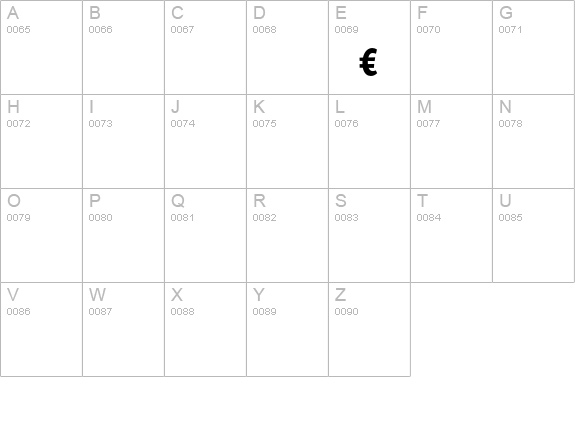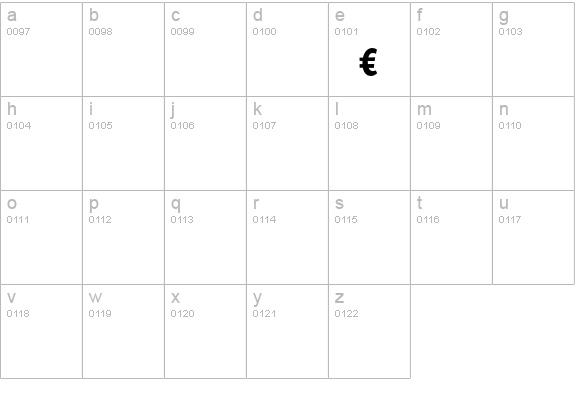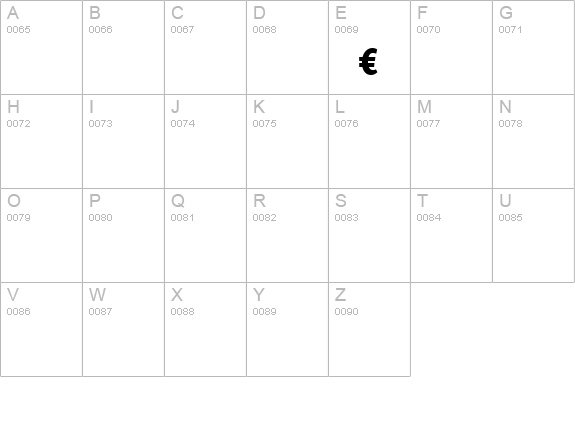
PedestriaMVB-Euro-Bold is a strong, high-contrast variant in the PedestriaMVB typeface family \xE2\x80\x94 well suited to headlines, attention-grabbing titles, and strong calls-to-action.
PedestriaMVB-Euro-Bold is a bold and eye-catching font that exudes confidence and modernity. With its clean lines and distinctively rounded edges, this typeface is sure to make a lasting impression in any design project. Whether you're creating a sleek logo, a stylish poster, or a captivating website, PedestriaMVB-Euro-Bold will add a touch of sophistication and professionalism. One of the best things about PedestriaMVB-Euro-Bold is that it is available for free. That's right, you can download this incredible font without spending a single penny. This means that designers and creatives of all budgets can enjoy the benefits of this stunning typeface. To get your hands on PedestriaMVB-Euro-Bold, simply head over to FontsMarket.com. There, you'll find a wide range of fonts, including this gem, ready for you to download and use in your projects. FontsMarket.com is a trusted source for high-quality fonts, and their collection is constantly growing, ensuring that you'll always find the perfect font for your needs. So why wait? Download PedestriaMVB-Euro-Bold today and elevate your designs to a whole new level. With its bold presence and elegant style, this font is sure to become a favorite in your typographic toolbox. And the best part? It won't cost you a thing. Get ready to impress with PedestriaMVB-Euro-Bold, the freely available font from FontsMarket.com.